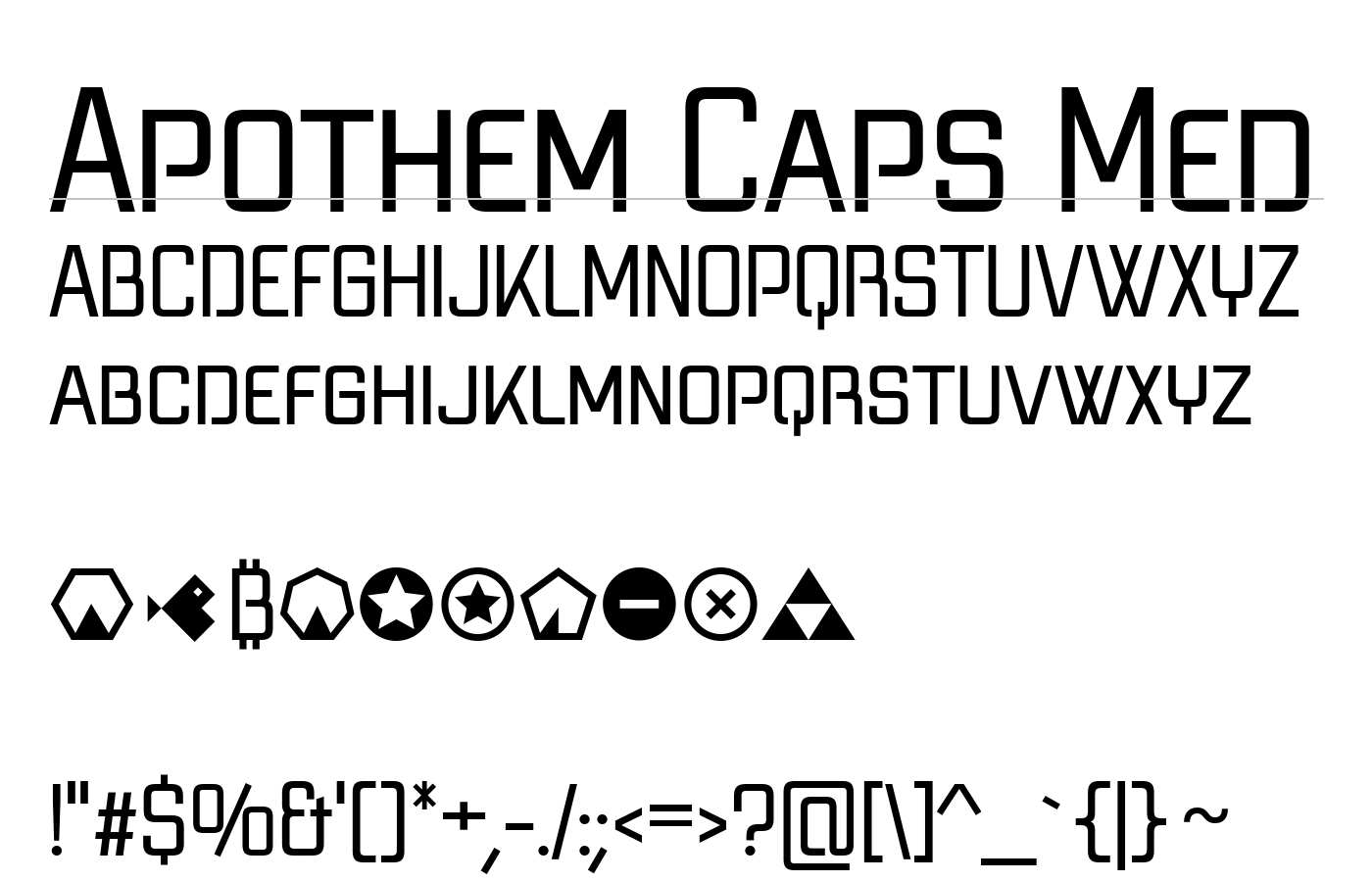
Apothem Caps is a sleek, condensed sans serif font featuring an all-caps design with a modern, geometric feel. Its clean lines, minimal stroke contrast, and distinctive angular shapes give it a contemporary, tech-inspired personality that works well for headlines, logos, and branding in industries related to technology, fashion, and innovation. This font stands out with its sharp, narrow letterforms that create a strong visual impact while maintaining excellent readability.
Apothem Caps Font
About Apothem Caps Font
| Font family | Apothem Caps Font |
| Designer | Fernando Haro |